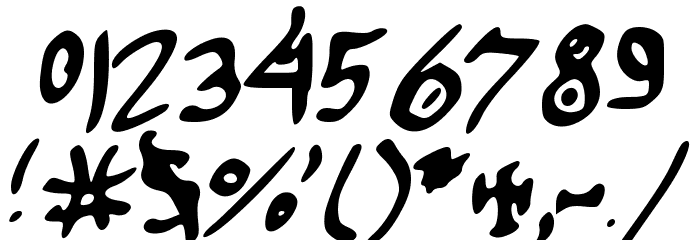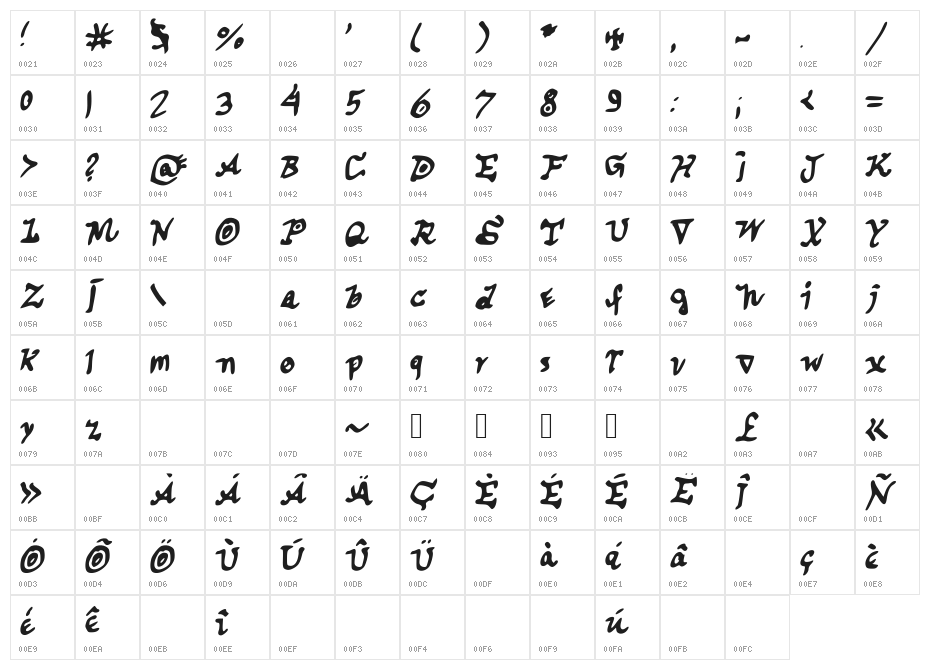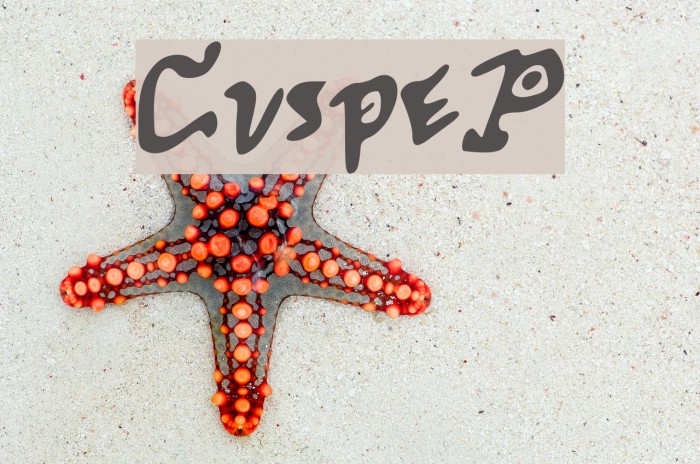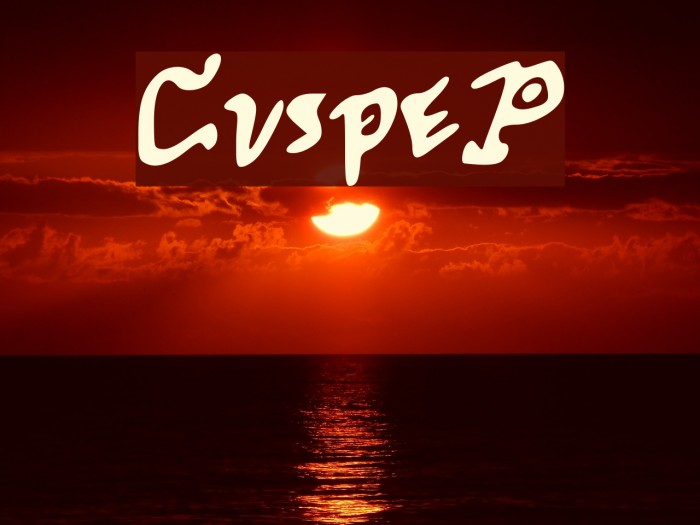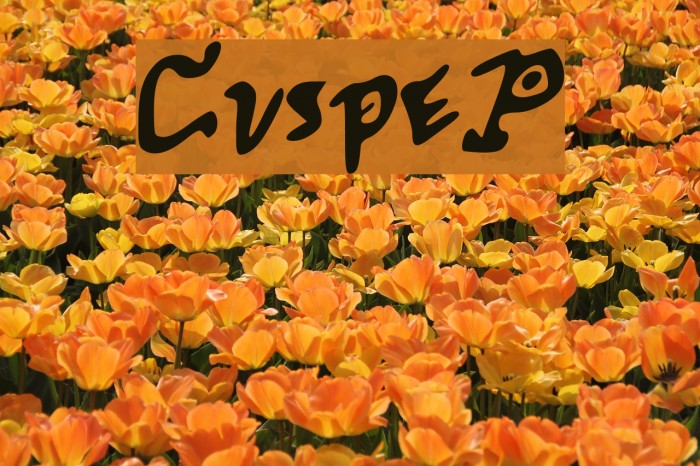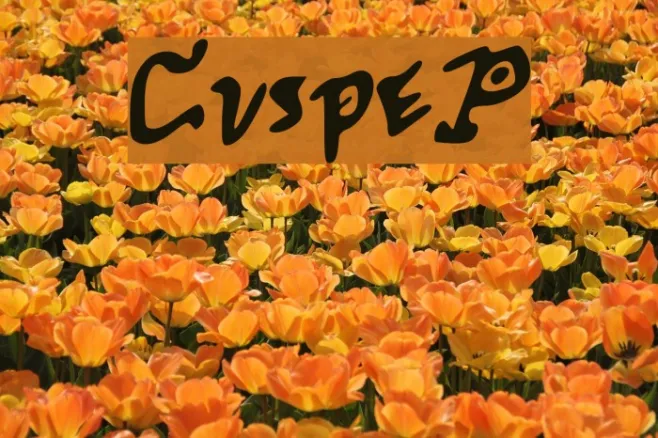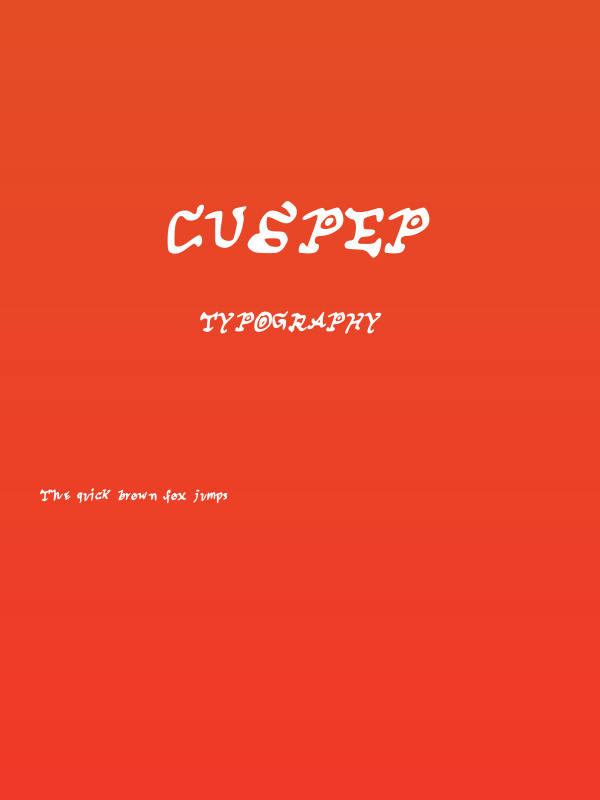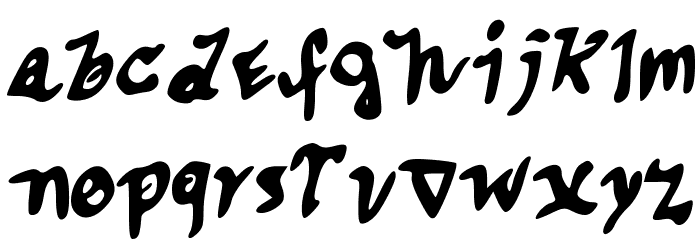
CuspeP Font
CuspeP Description
This font exhibits a bold and expressive style with a handwritten appearance. The characters are fluid and dynamic, featuring irregular strokes that give it a lively and artistic feel. The uppercase and lowercase letters maintain a consistent style, with some characters having unique flourishes that add to its charm. The numbers and special characters follow the same expressive design, making the font suitable for creative projects. Its playful and informal nature makes it ideal for designs that require a personal touch.
| Proposed Projects | Ideal for greeting cards, artistic posters, creative branding, and playful invitations. |